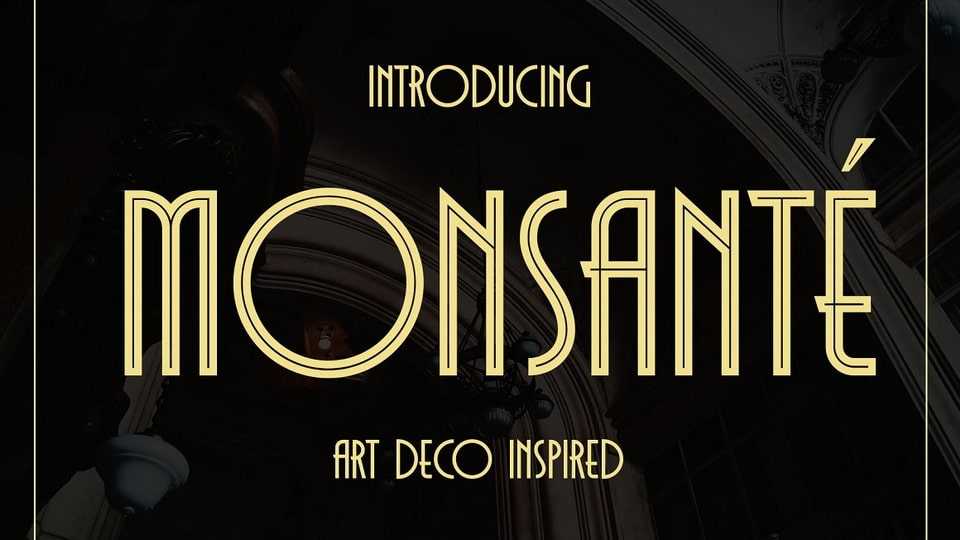
Download Monsante font, a modern Art Deco-style typeface. Inspired by typography from the 1920s, it exudes elegance, luxury, and a touch of modernism. Carefully crafted with distinctive geometric elements and crisp letterforms, Monsante font creates a sense of luxury and sophistication.